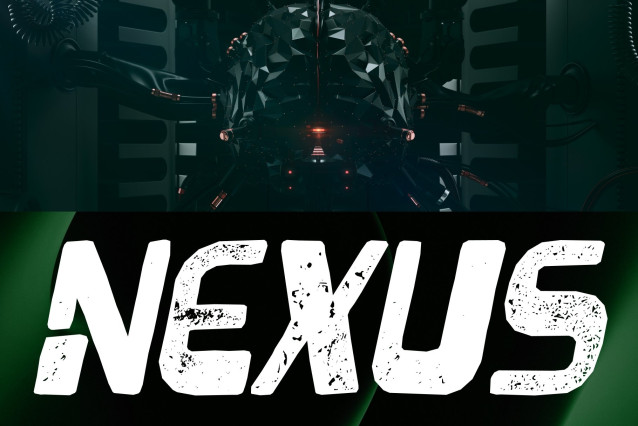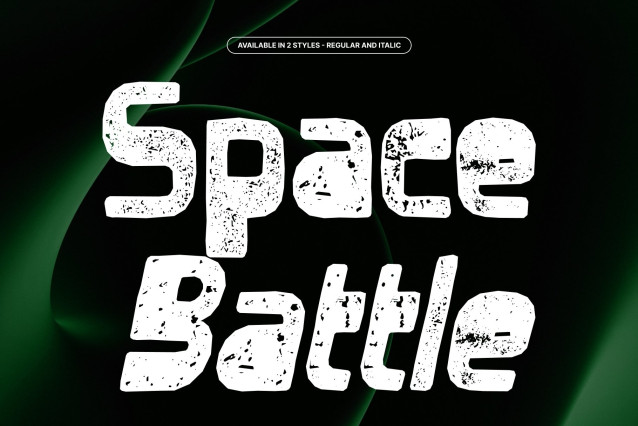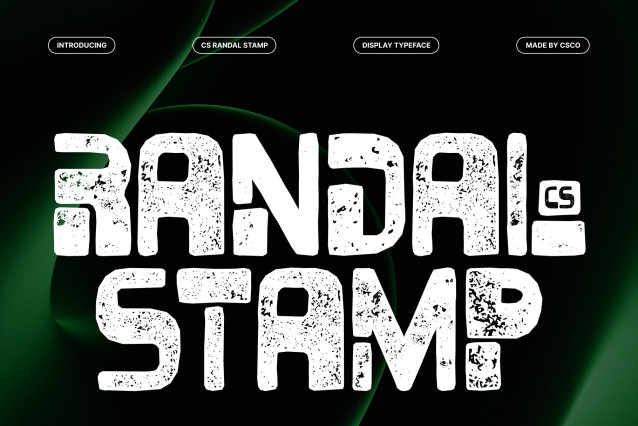
CS Randal Stamp – Brutalist Sans Serif Font: Where Raw Industrial Power Meets Vintage Stamp Texture
Bold Brutalist Forms with Uncompromising Character
This is a stylish and experimental sans serif font built on the foundations of brutalist design. Its sharp edges, assertive forms, and unapologetically rigid construction create a commanding visual identity filled with strength, confidence, and industrial attitude. Every character feels bold and purposeful, making the font perfect for projects that demand a powerful and unconventional presence.
Stamp Texture with Authentic Vintage Character
This font features rough and uneven detailing that adds vintage authenticity and artistic texture to every letterform. This distressed finish evokes the look of aged prints, stamped graphics, and classic printmaking techniques, creating a rich tactile quality while preserving the font’s strong structural foundation. The result is a style that feels both rugged and visually compelling.